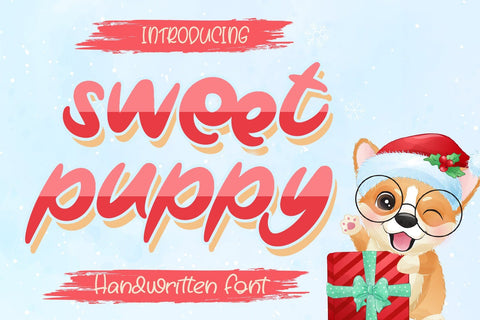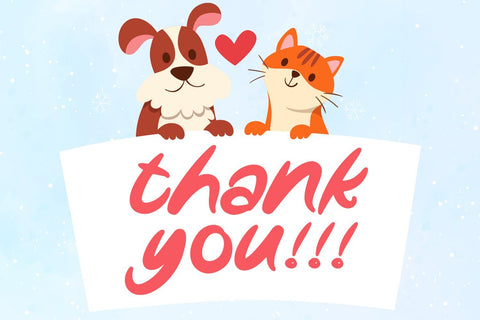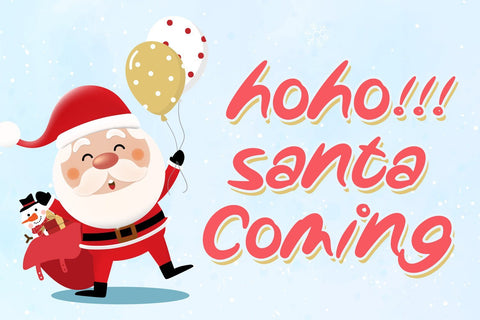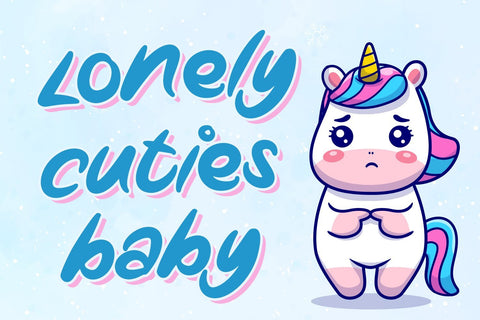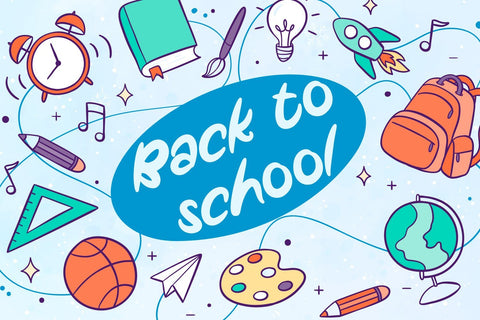
Sweet Puppy - Display Font
Sweet Puppy Display Font is a delicate and elegant handwritten font. Its distinct and well rounded letters make this font a masterpiece. Fall in love with its incredibly versatile style and use it to create spectacular designs!